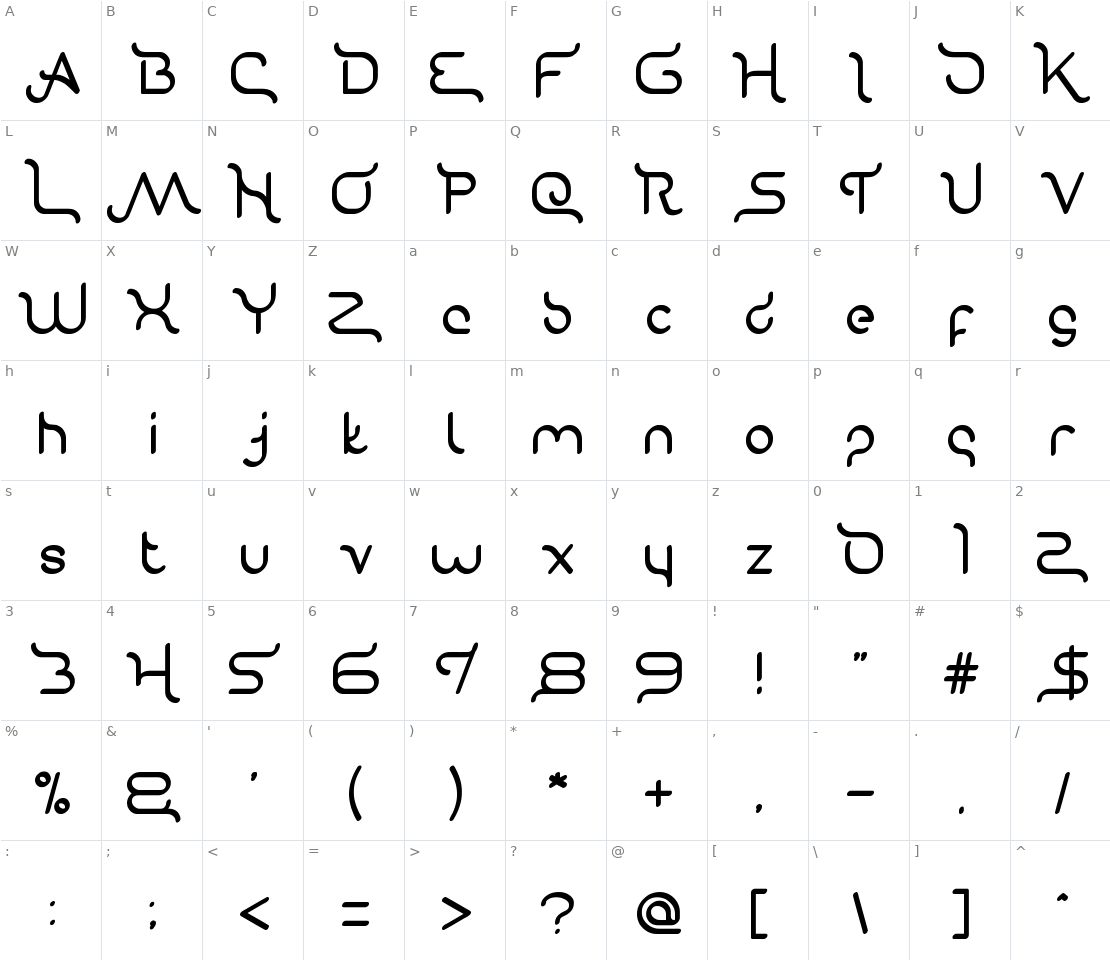
Gravity Relationships
Gravity Relationships is a decorative display face from weknow with curvy, unconventional letterforms that feel more like artwork than traditional type. Each character carries a playful sense of movement, with unexpected proportions and flowing strokes that keep the eye guessing. Best reserved for headlines, posters, and creative branding where standing out matters more than blending in.